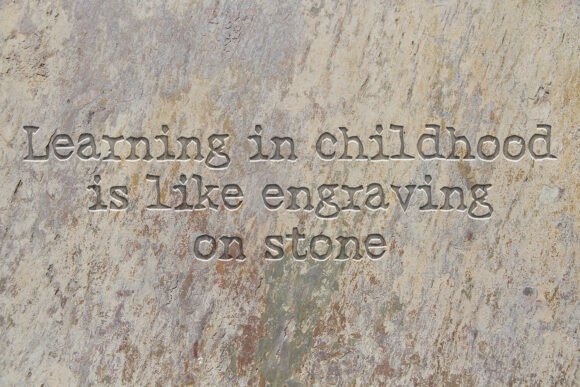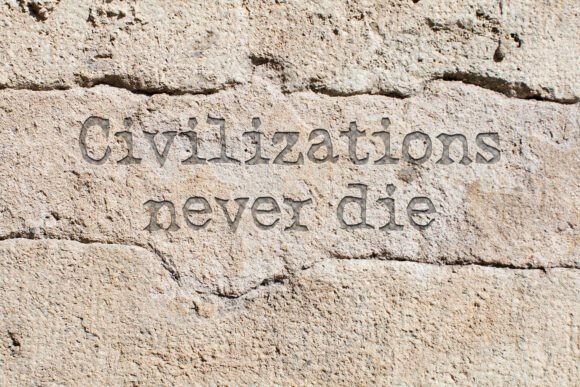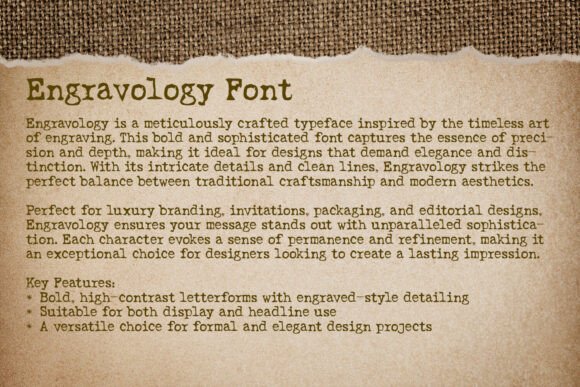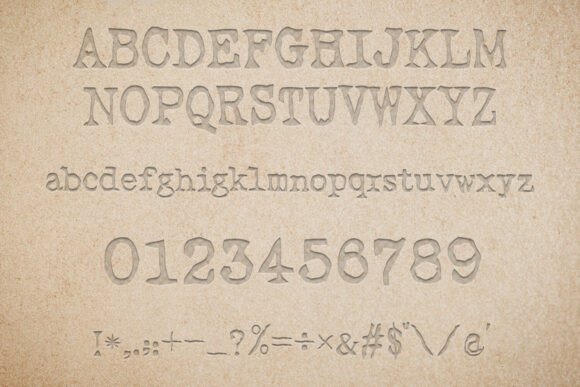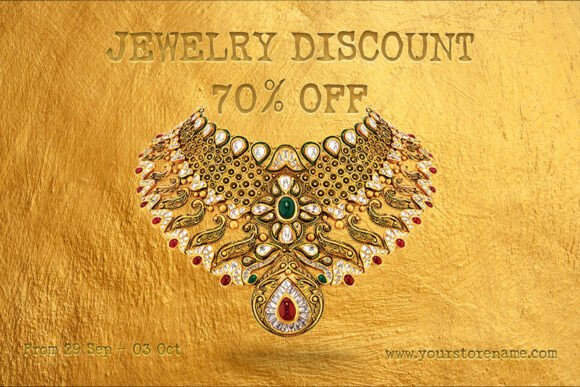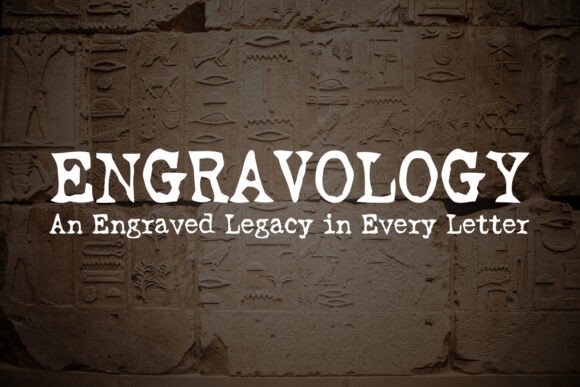
Introducing Engravology Font: Elevate Your Designs with Timeless Elegance
In the world of digital design, typography plays a crucial role in conveying the tone and personality of a brand or project. For those seeking a font that exudes sophistication, precision, and luxury, Engravology is an exceptional choice. This bold and refined typeface brings the art of traditional engraving to the digital realm, offering a unique blend of classic craftsmanship and modern versatility.
The Essence of Engravology
Engravology is more than just a font – it’s an experience. Inspired by the intricate details and sharp edges of engraved designs, this typeface captures the essence of high-end craftsmanship. Its clean, high-contrast letterforms are meticulously designed to deliver a polished look that’s perfect for luxury branding, high-end packaging, formal invitations, editorial headlines, and more.
Key Features of Engravology
• Sharp Edges and Refined Details: Engravology’s sharp edges and refined details evoke the precision and craftsmanship of traditional engraving. This attention to detail ensures that every character is not only visually striking but also highly legible.
• High-Contrast Letterforms: The font’s high-contrast letterforms add a touch of elegance and depth to any design. This contrast makes Engravology perfect for headlines, titles, and any application where visual impact is key.
• Timeless Appeal: Unlike trendy fonts that may quickly become outdated, Engravology boasts a timeless quality. Its classic design ensures that your work will remain stylish and relevant for years to come.
• Versatility: Engravology is incredibly versatile, making it suitable for a wide range of creative projects. From luxury branding and high-end packaging to formal invitations and editorial design, this font adapts seamlessly to various contexts.
Applications of Engravology
Engravology’s unique characteristics make it an excellent choice for various design applications:
• Luxury Branding: Use Engravology to create a sophisticated brand identity that communicates elegance and refinement.
• High-End Packaging: Elevate your packaging design with a font that conveys luxury and quality.
• Formal Invitations: Add a touch of class to your formal invitations, ensuring that your event or occasion is memorable from the first glance.
• Editorial Headlines: Make your editorial content stand out with Engravology’s bold and sophisticated headlines.
Why Choose Engravology?
In a sea of digital fonts, Engravology stands out for its unique blend of traditional craftsmanship and modern design. Here are a few reasons why designers and crafters should consider Engravology for their next project:
• Unique Aesthetic: Engravology offers a distinctive look that’s hard to achieve with standard fonts. Its engraved-inspired design adds a level of sophistication that’s sure to impress.
• Readability and Versatility: The font’s high-contrast design ensures readability across various sizes and applications, making it a practical choice for both digital and print projects.
• Elegance and Timelessness: With Engravology, you can achieve a level of elegance and timelessness that’s rare in digital typography.
Engravology is a bold and sophisticated font that brings the art of engraving to the digital world. Its sharp edges, refined details, and high-contrast letterforms make it perfect for designers and crafters looking to add a touch of luxury and elegance to their work. Whether you’re working on luxury branding, high-end packaging, formal invitations, or editorial headlines, Engravology delivers a timeless, polished look that’s sure to elevate your designs. Experience the craftsmanship and versatility of Engravology and discover how this exceptional font can transform your creative projects.